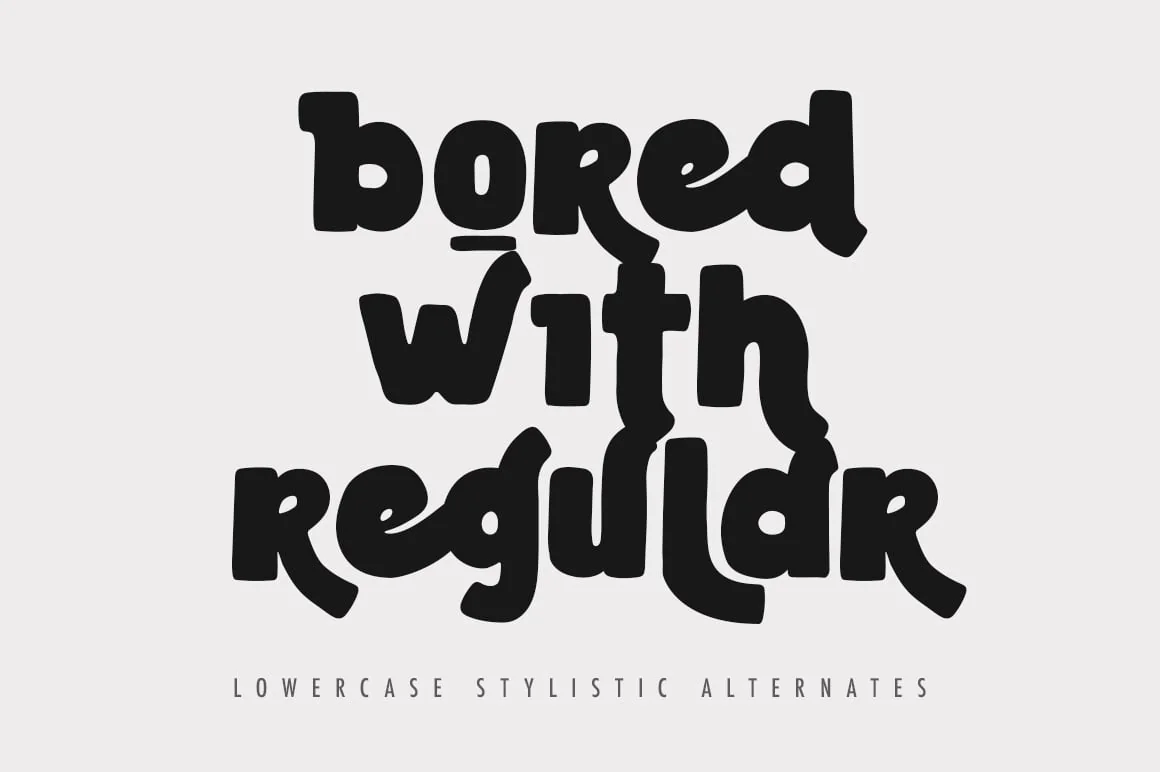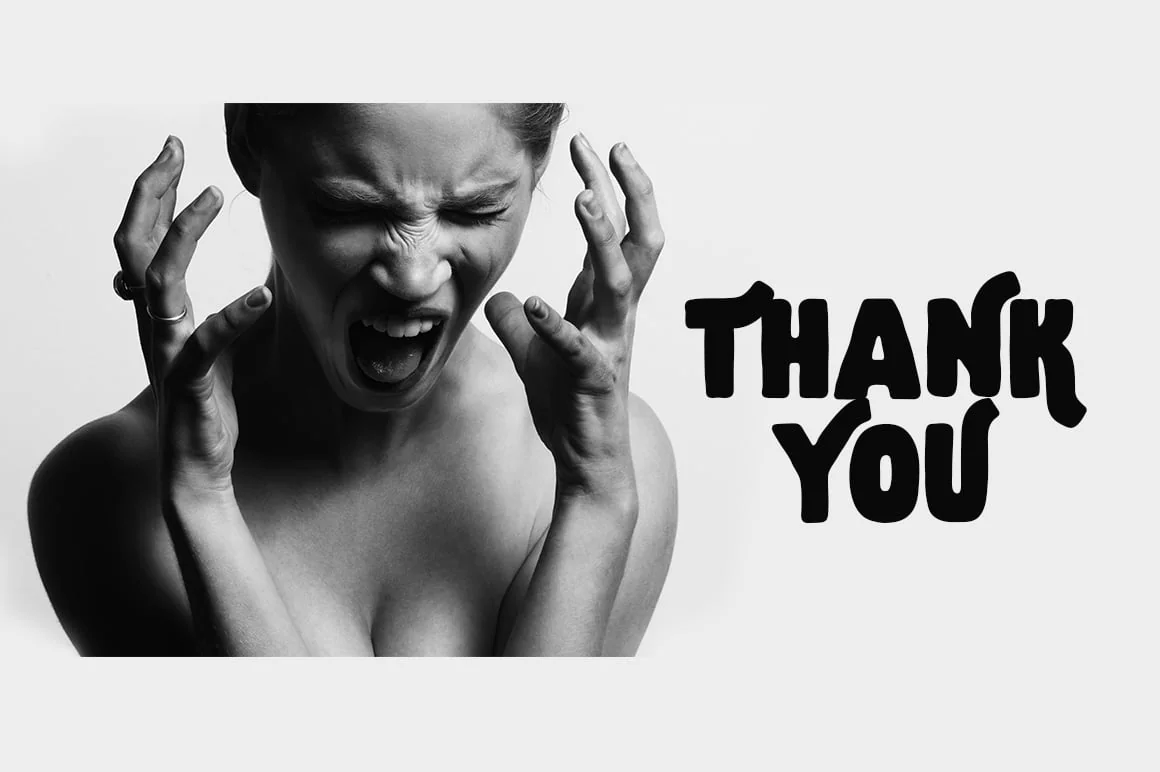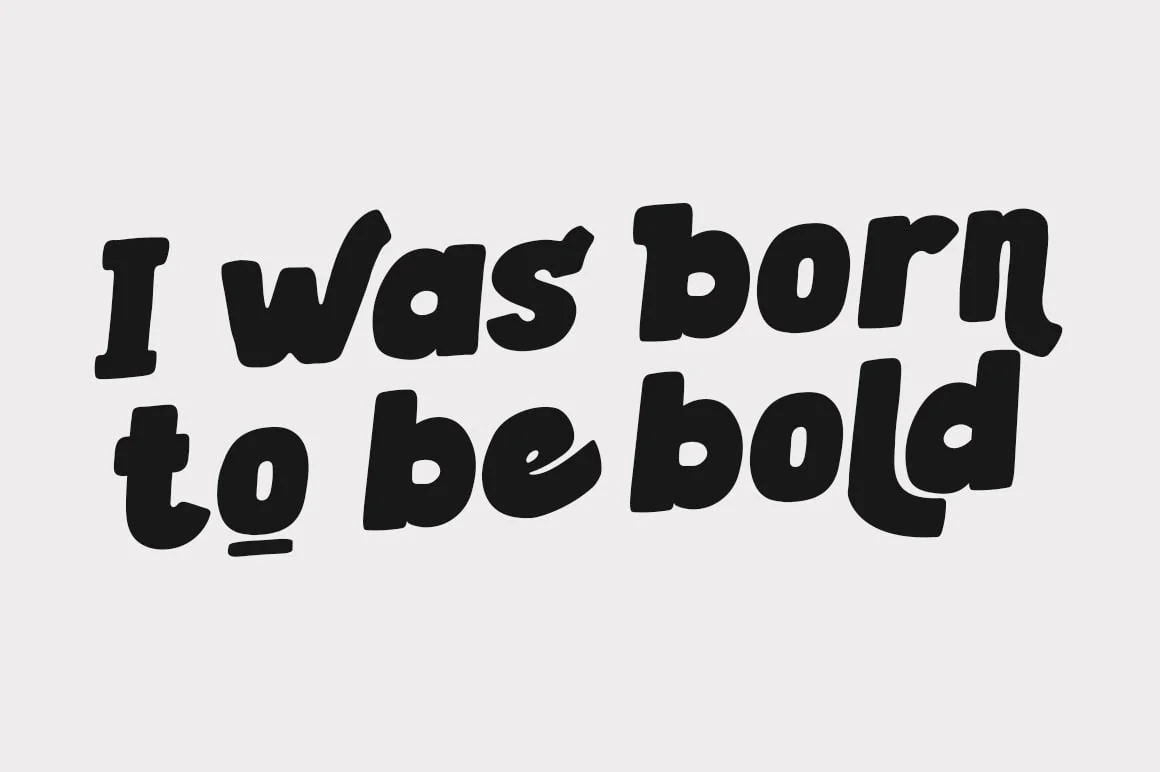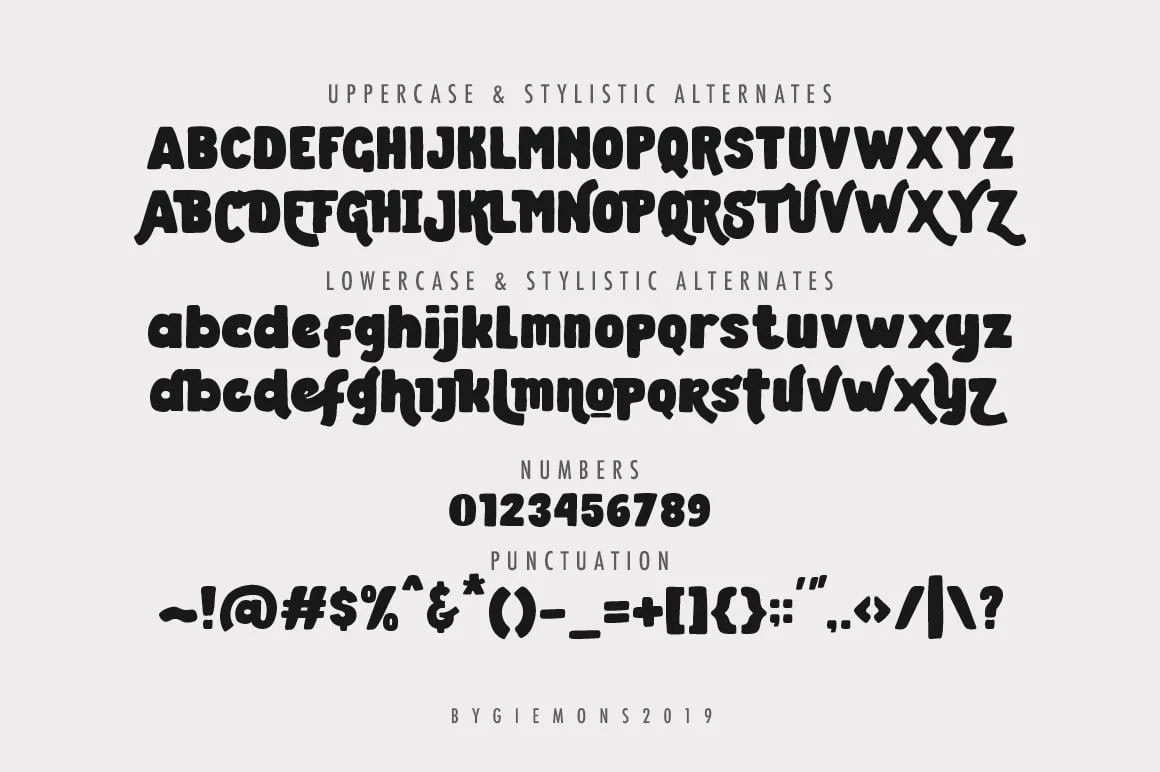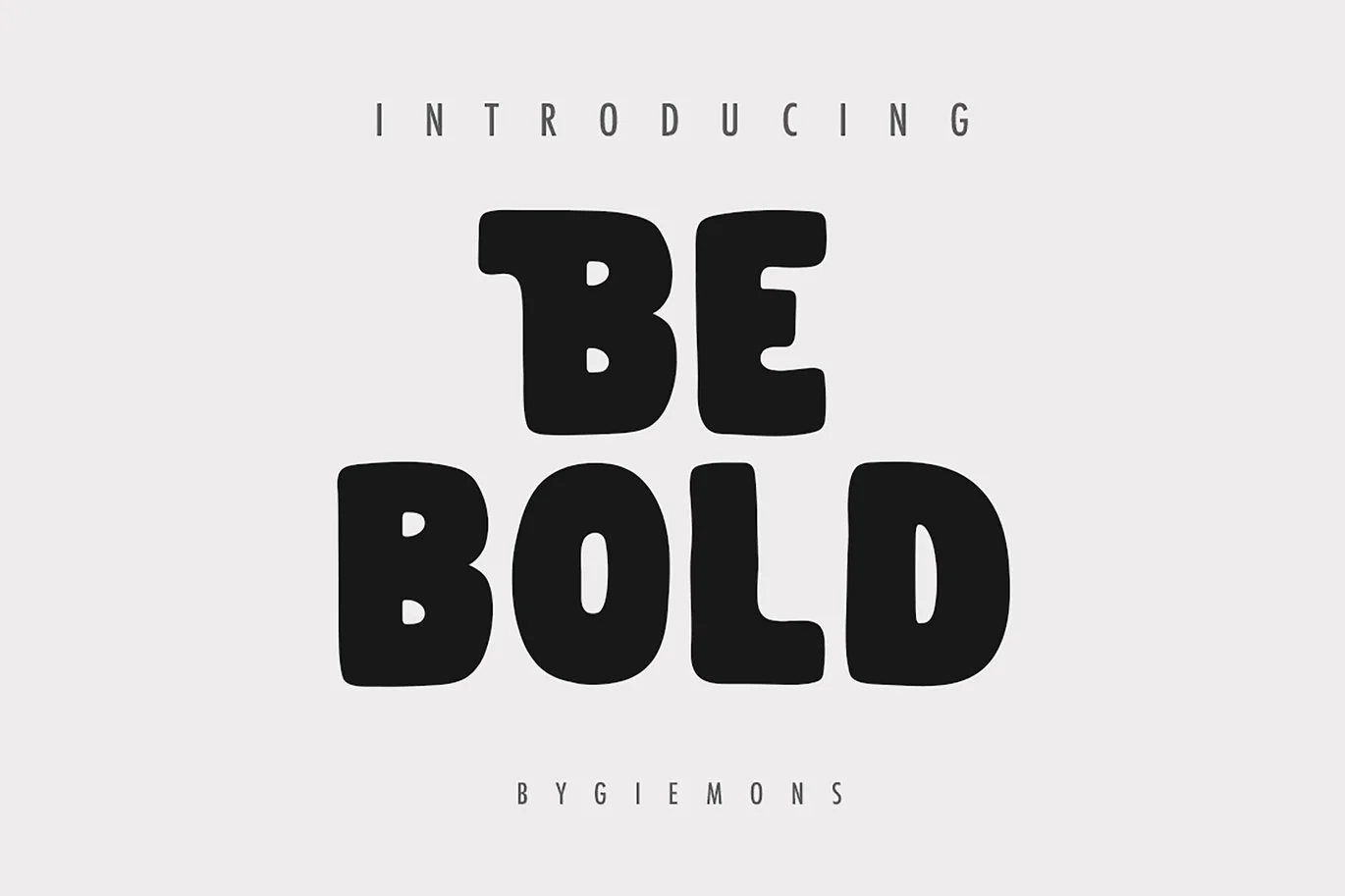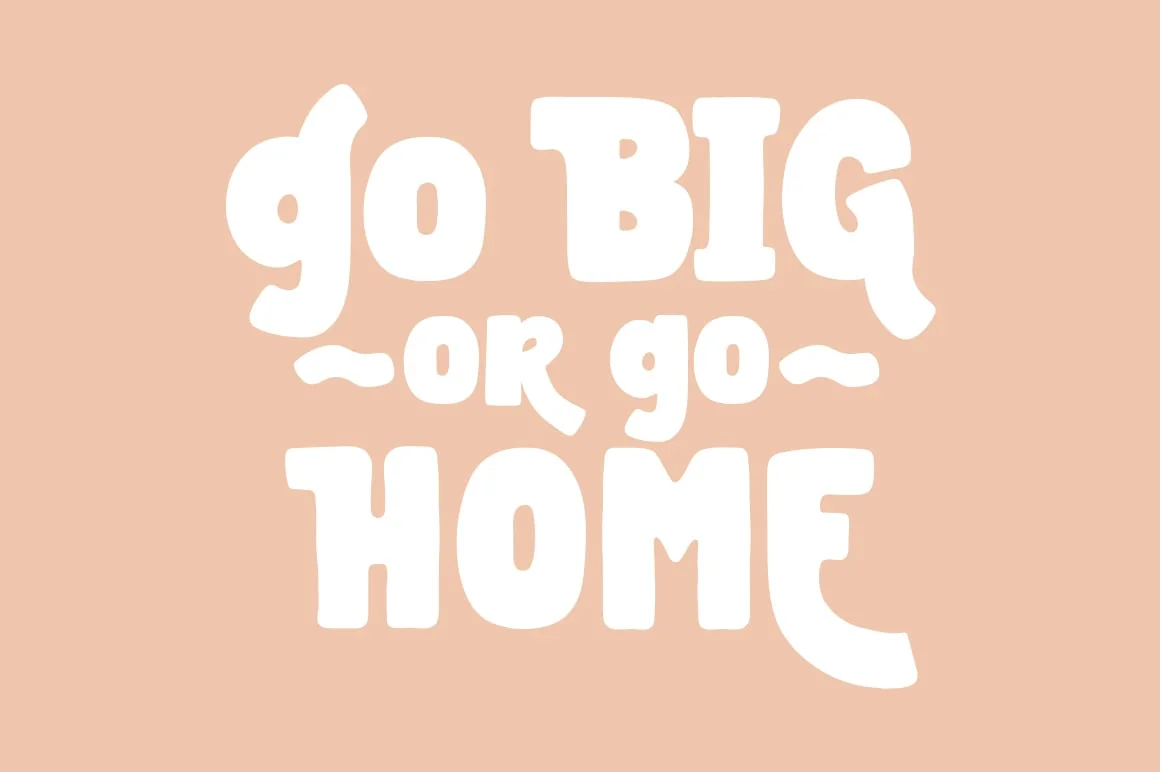
Be Bold Typeface
a BE BOLD Typeface is Display Font. Can make it easier to convey the message in your design. Use for awesome display, Logo, labeling, clothing, movie sceen, poster, movie title, gigs, album covers, logos, and much more.
Uppercase & Lowercase
Numerals & Punctuations
Stylistic Uppercase
Stylistic lowercase